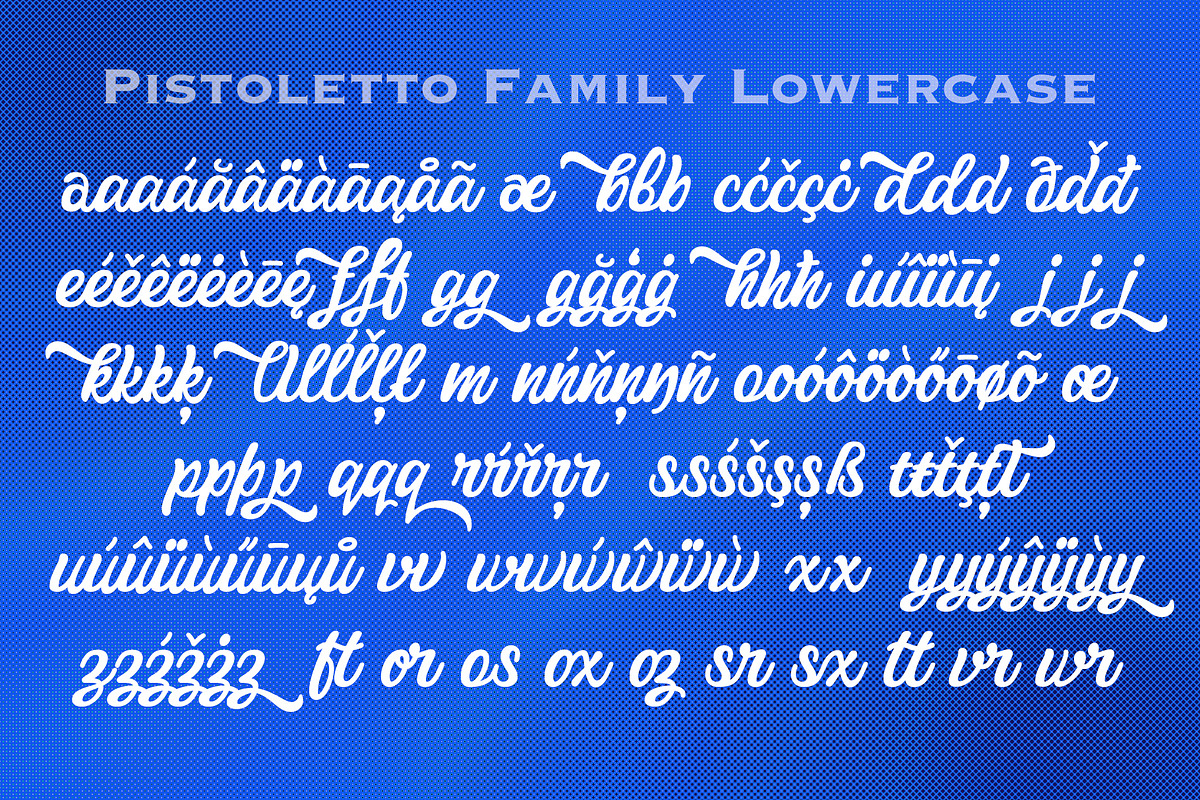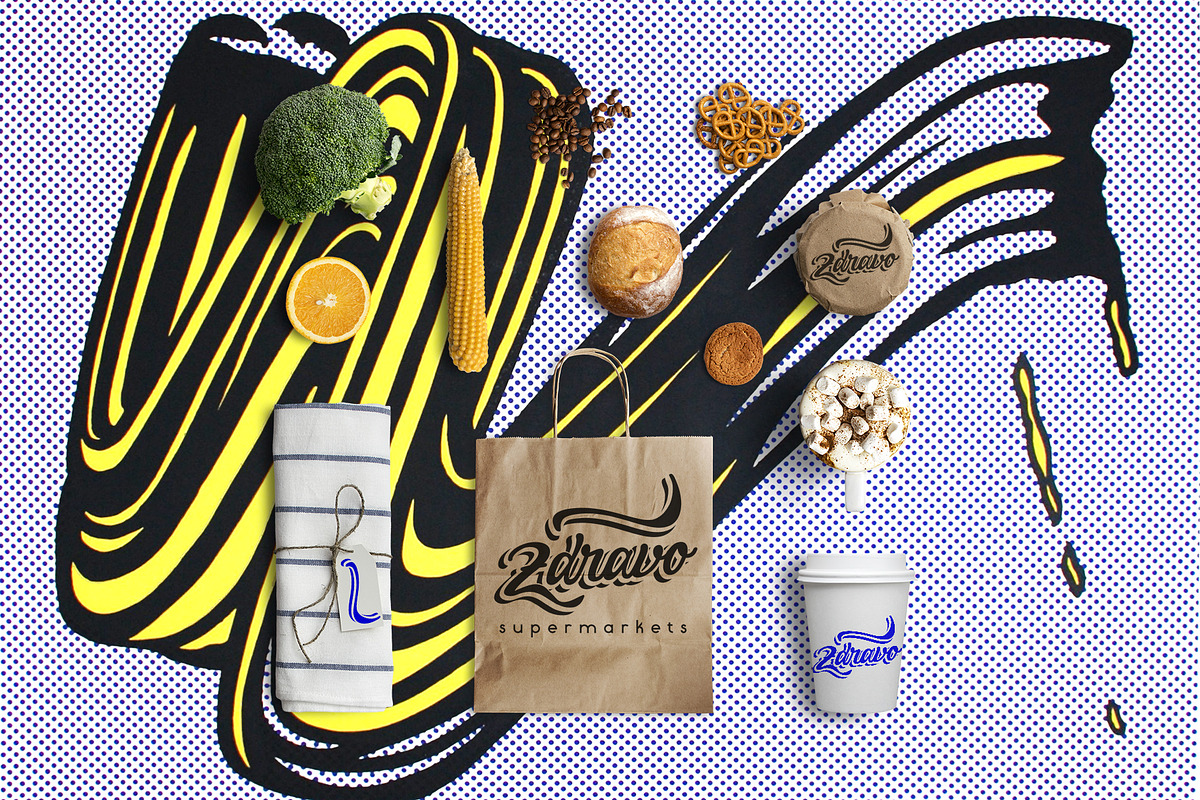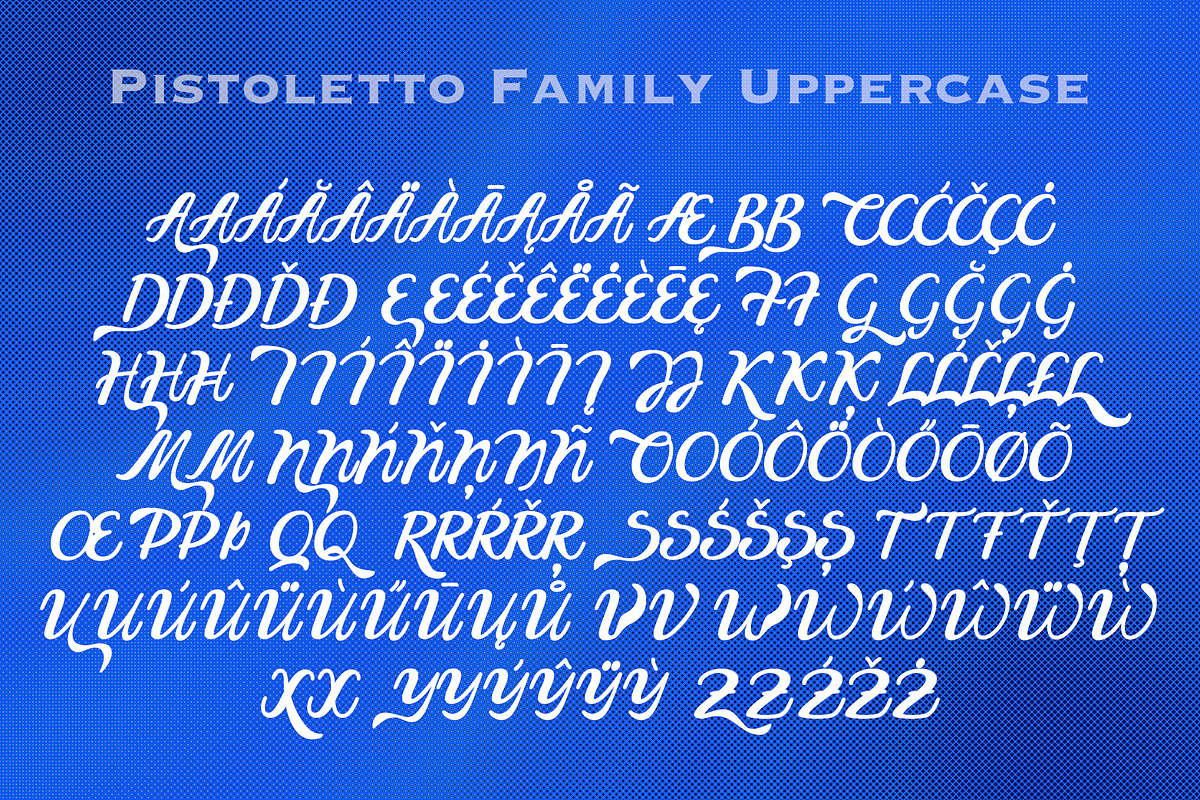
Pistoletto Family
Introducing Pistoletto script. I was inspired by works of Roy Lichtenstein and Michelangelo Pistoletto. There are 4 fonts that in different combinations make interesting results:
- Background
- Black
- Highlight
- Regular.
Each style supports European languages. Basic latin has uppercase alternates, two lowercase alternates, many ligatures and swashes.